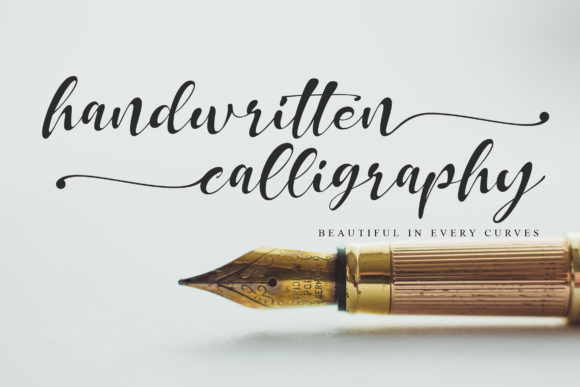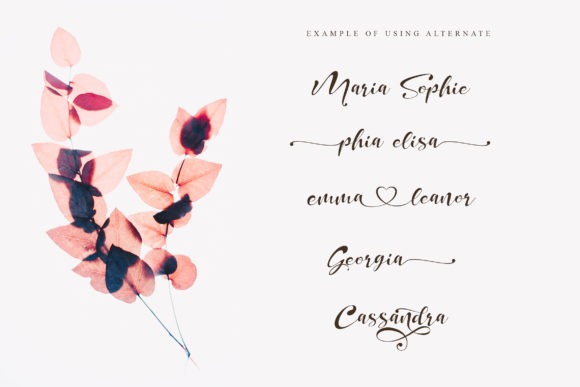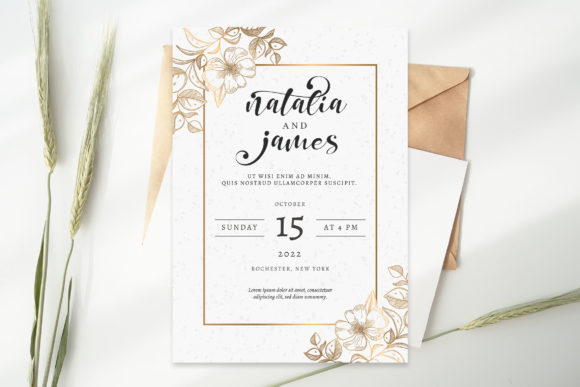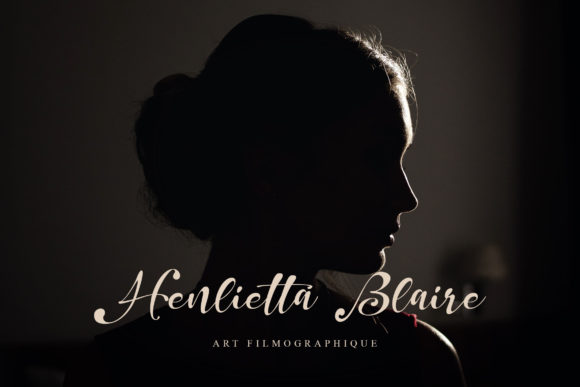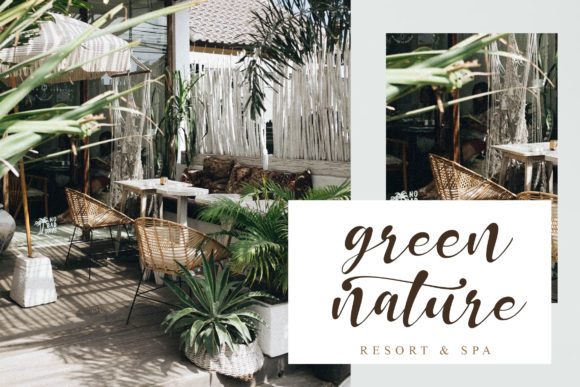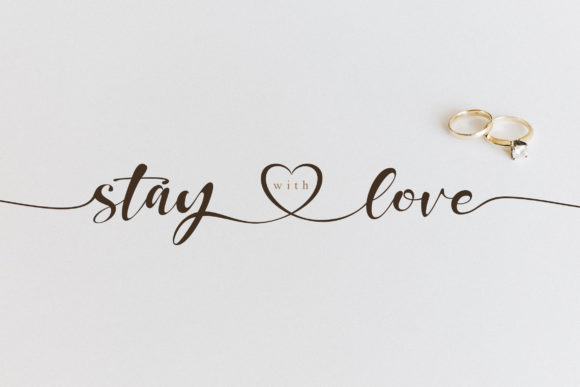
Introduction to Dream of Heartland Font
As a designer, have you ever found yourself pouring over a blank page, desperate to bring your creative vision to life? You’ve scoured the web for the perfect font, only to end up with something that’s just… okay. But what if you could tap into a font that’s not just beautiful, but also incredibly versatile? Enter the Dream of Heartland Font, a stunning handwritten font that’s perfect for any creative project.
With its gorgeous swashes and ligatures, the Dream of Heartland Font is a game-changer for designers looking to elevate their designs. Whether you’re working on a high-quality design resource for a client or a personal project, this font is sure to impress. And the best part? It’s available for free download, complete with a transparent background that makes it easy to work with.
As a valuable addition to any designer’s toolkit, the Dream of Heartland Font is a must-have for anyone looking to take their designs to the next level. So why settle for anything less when you can have a font that’s truly a work of art?
Key Features of Dream of Heartland Font
- High-quality design resource for creative projects, perfect for those looking for a unique touch.
- Designed to evoke a sense of nostalgia and Americana, making it perfect for heartland-inspired designs and projects.
Honest Review: Dream of Heartland Font
I recently stumbled upon the Dream of Heartland Font and was immediately drawn to its charming, rustic feel. As a designer, I’m always on the lookout for high-quality design resources that can elevate my creative projects.
What works well: ✨ The font’s unique blend of vintage and modern elements makes it perfect for a variety of projects, from wedding invitations to outdoor advertising campaigns. The transparent background also allows for seamless integration with any design element.
Some of the key features I appreciate include:
⚠️ One limitation is that the font may not be suitable for projects requiring a highly formal or corporate tone. Additionally, some users may find the font’s vintage aesthetic too kitschy for certain designs.
Overall, I’m impressed with the Dream of Heartland Font and would recommend it to designers looking for a unique, high-quality design resource. With its versatility and free download option, it’s a valuable addition to any design arsenal.